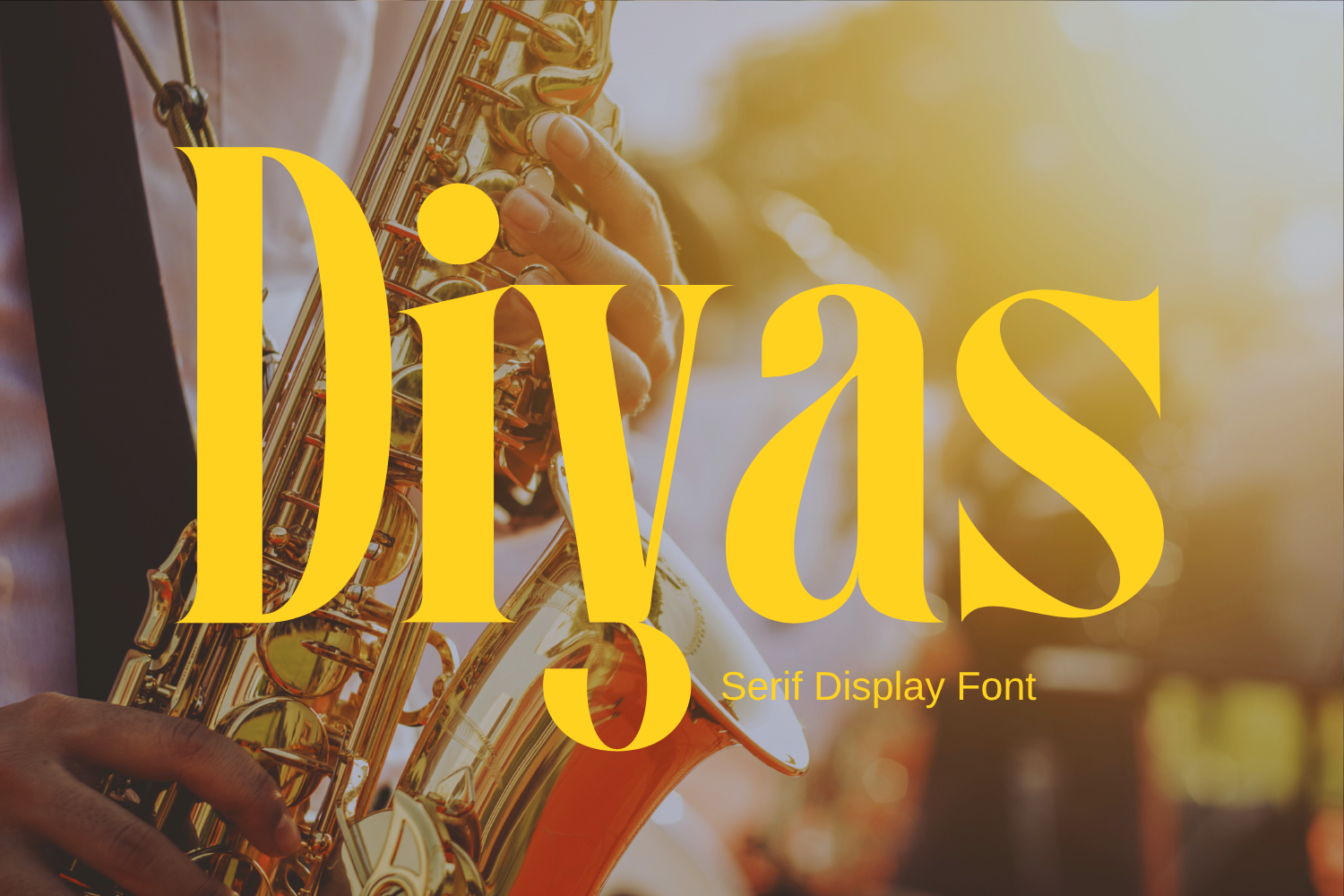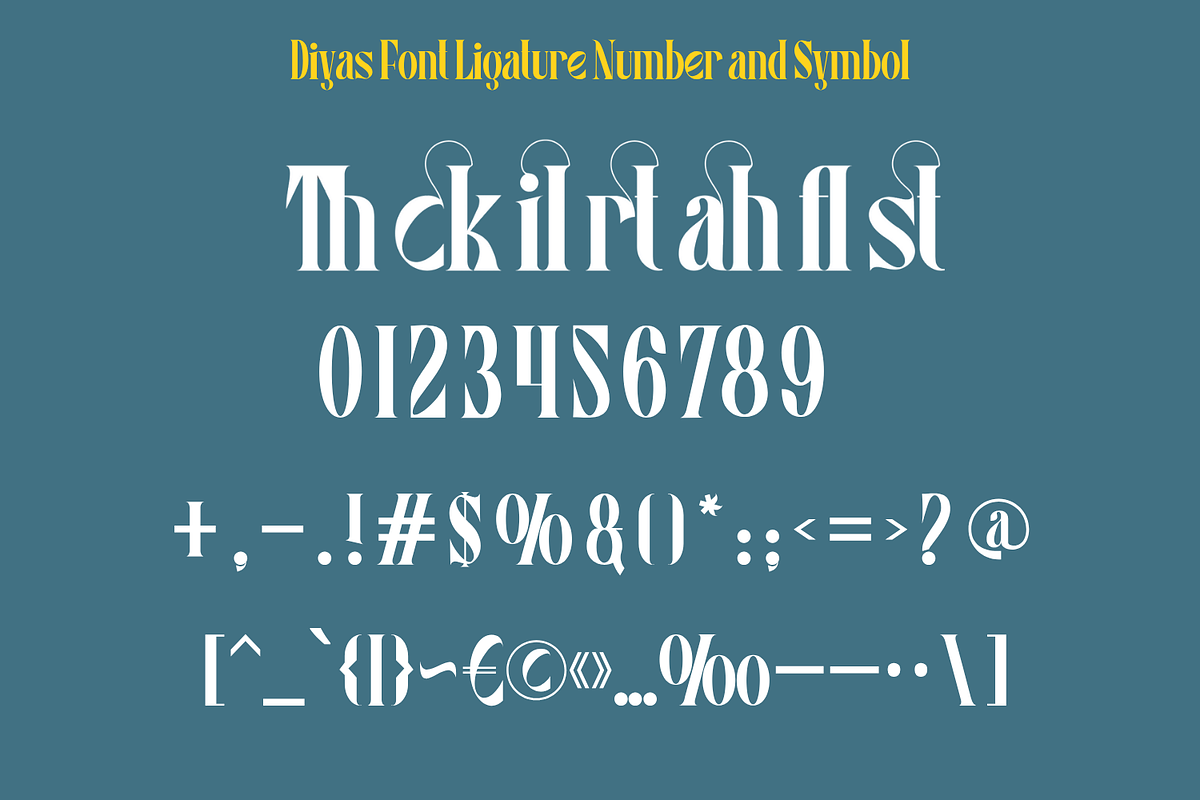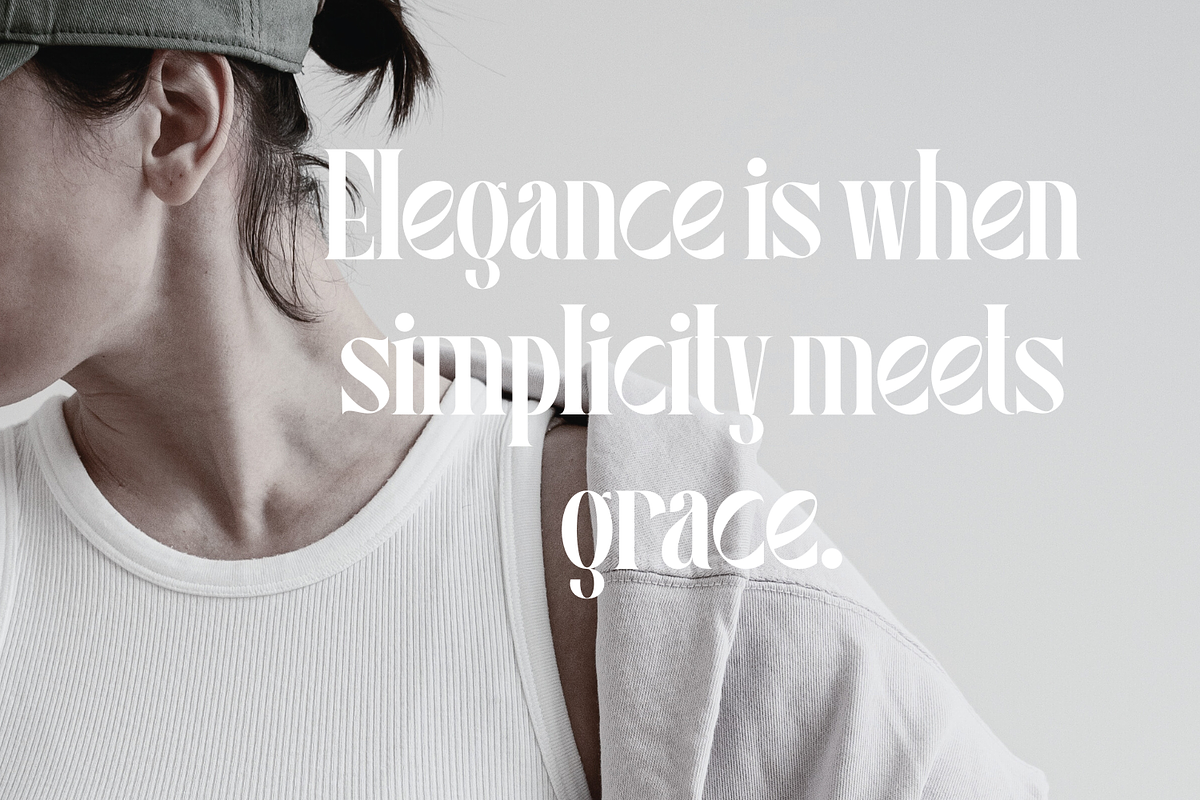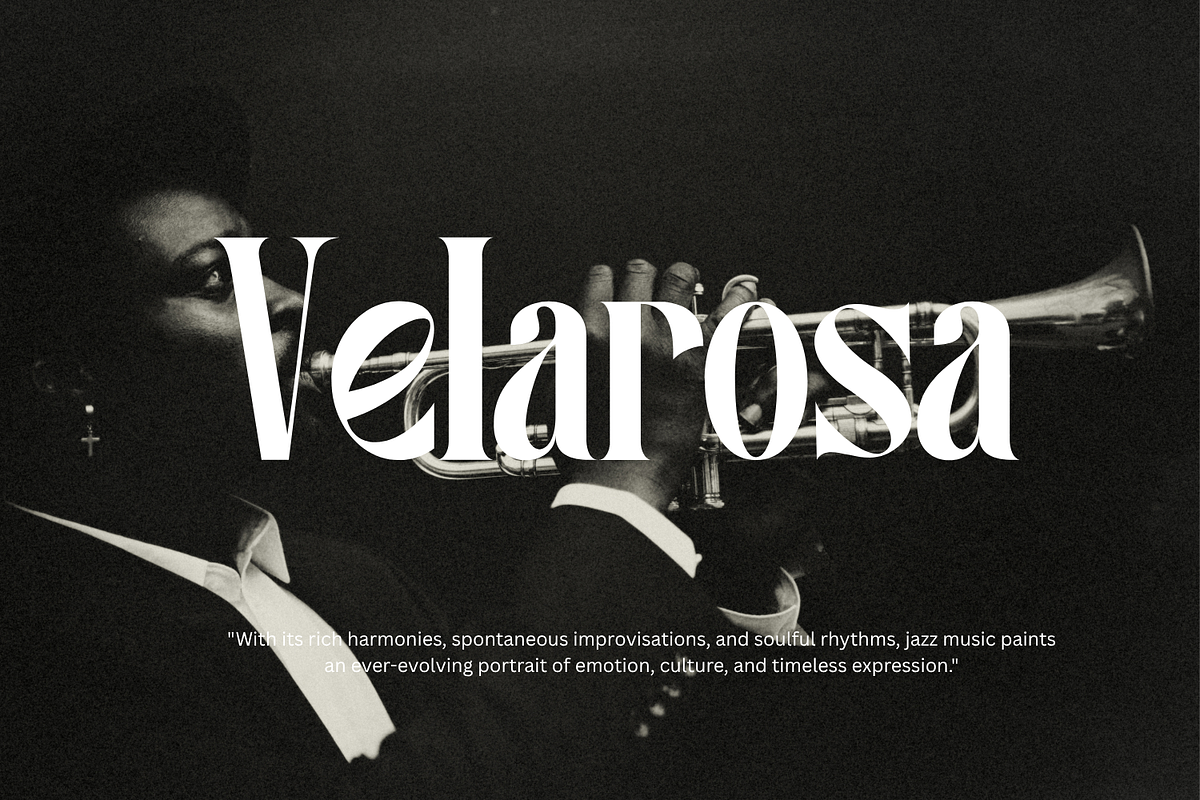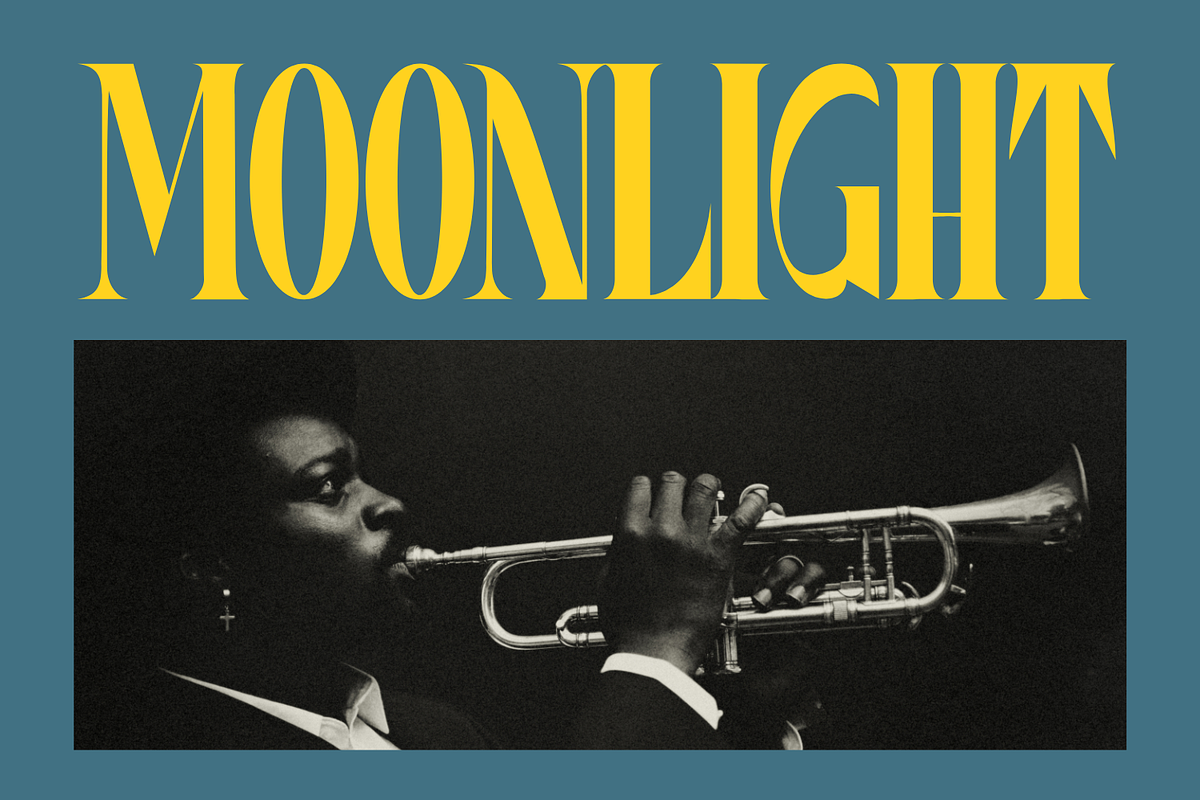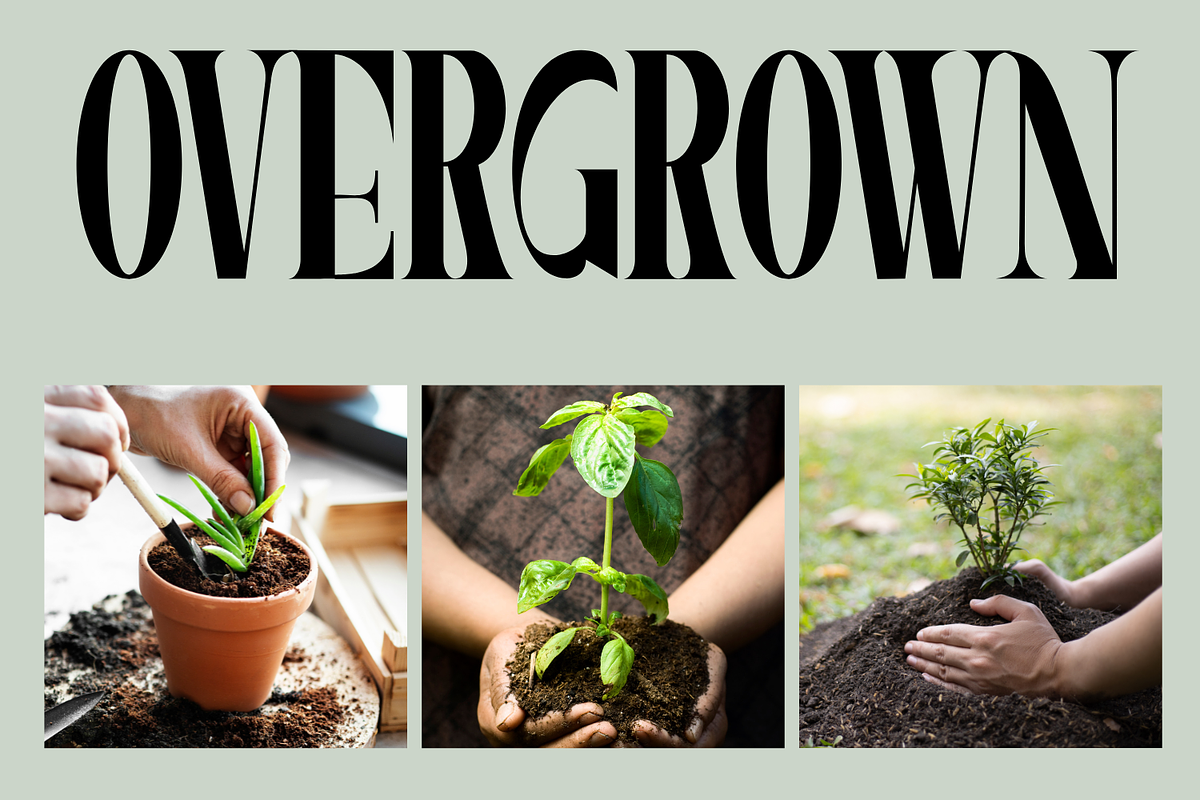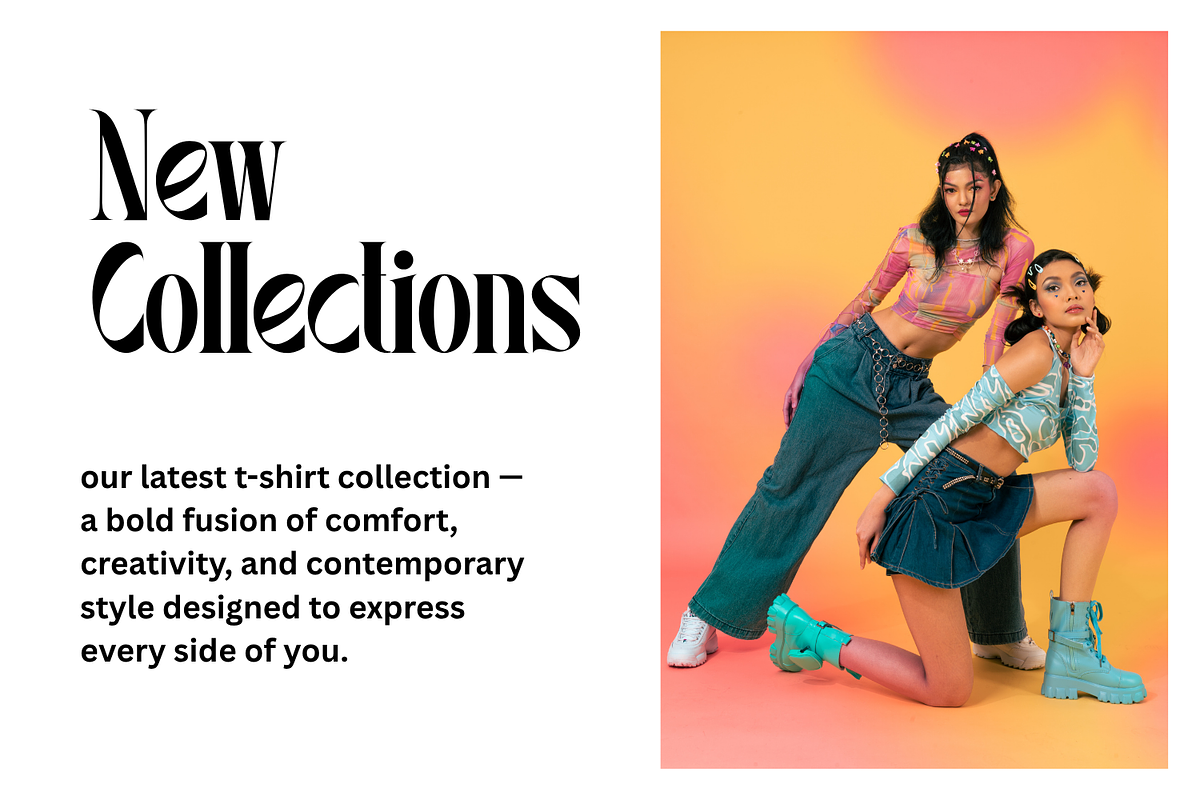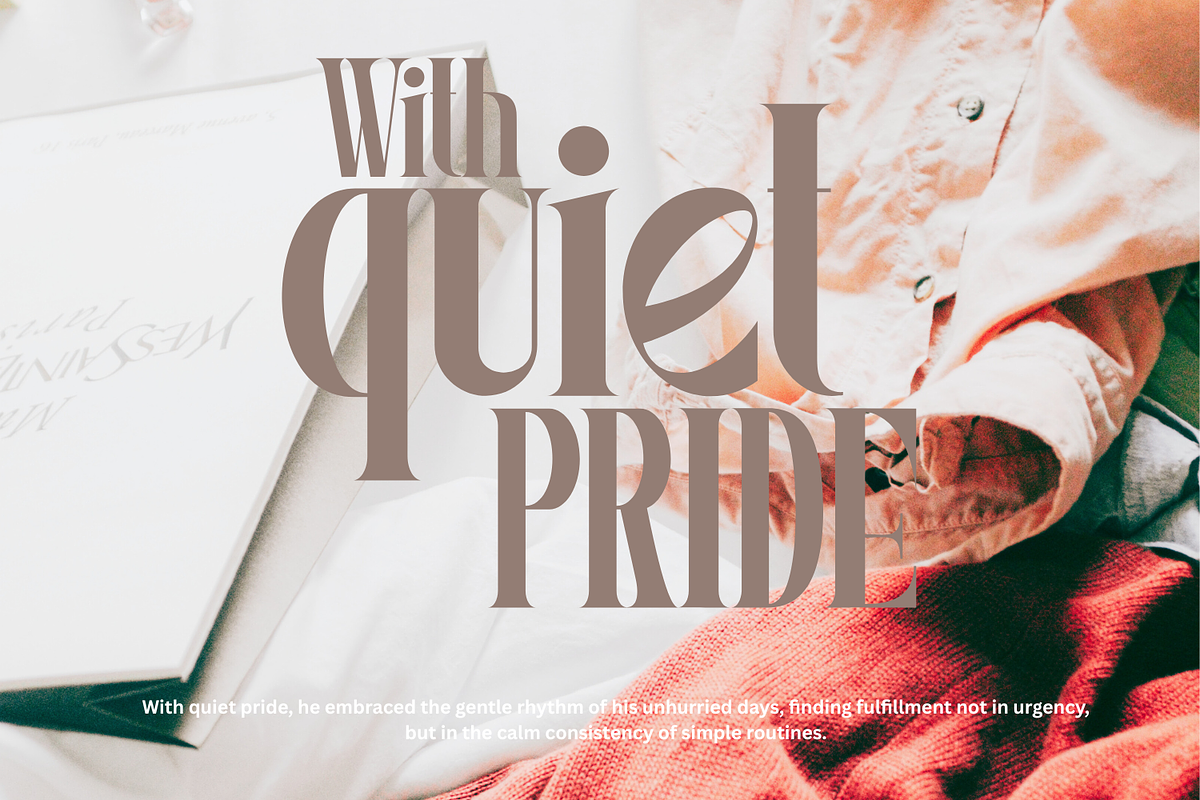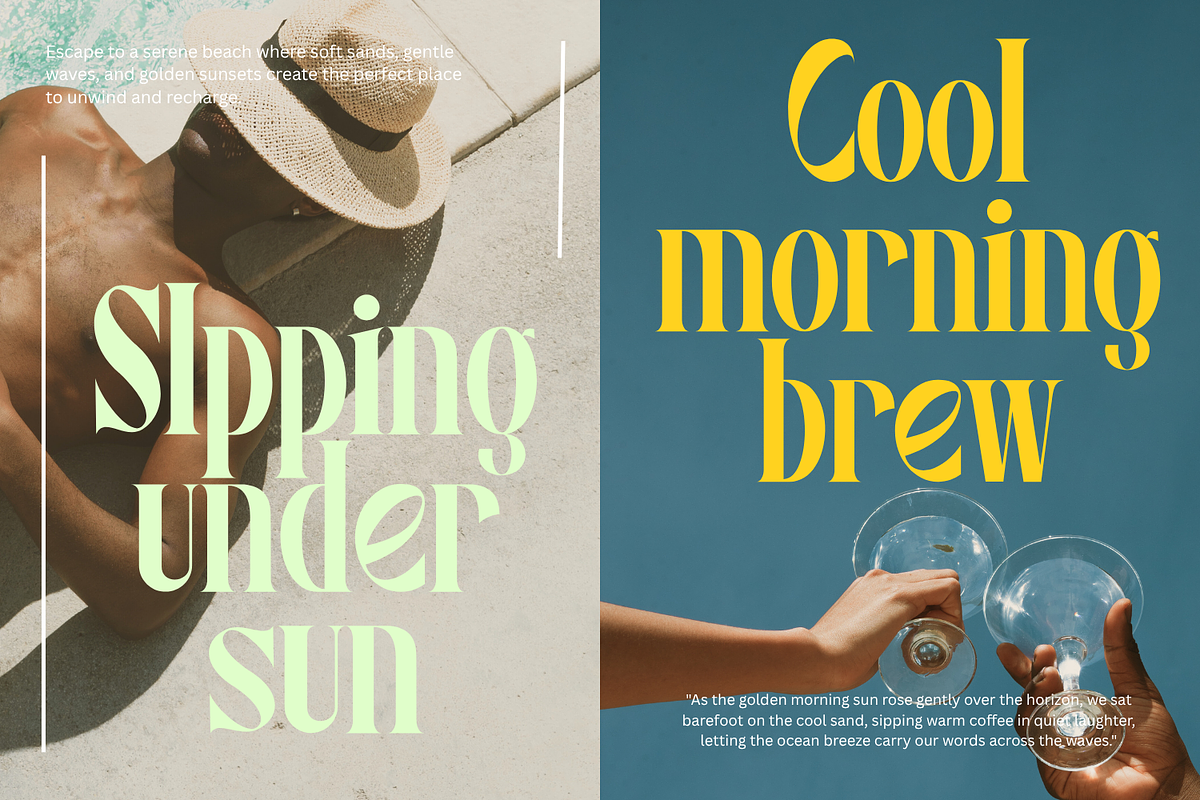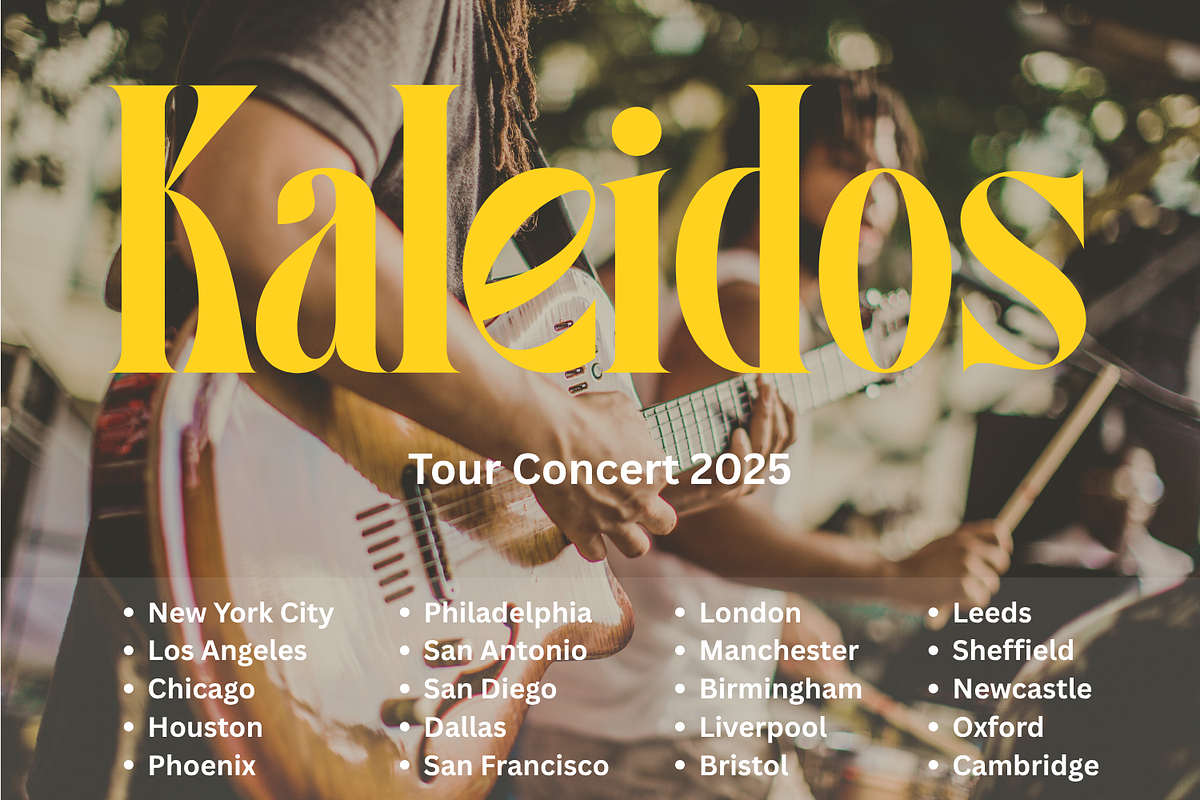
Diyas Font
✨ Diyas Font – Elegant Serif Display Typeface
Diyas Font is a modern serif display font designed to bring sophistication, elegance, and bold character to your design projects. Featuring beautiful ligatures, unique curves, and a high-contrast style, Diyas is perfect for designers looking for a refined yet versatile typeface.
Crafted for both digital and print use, Diyas Font works beautifully for branding, editorial layouts, social media graphics, wedding invitations, fashion lookbooks, and more. Its sleek, luxurious letterforms create a strong visual identity without overpowering your design.
- Uppercase & Lowercase Letters
- Stylish Ligatures (th, ck, fl, st, etc.)
- Branding & Logo Design
- Editorial & Magazine Layouts
- Invitations & Stationery
- Packaging & Labels
- Social Media Graphics
- Fashion, Beauty, and Luxury Projects
- Elegant & High-Contrast Strokes
- Unique Ligature Pairs
- Display Ready for Web or Print
- Easy to Pair with Other Fonts
- Clean, Classy, and Versatile Style
Why You'll Love It: Diyas Font makes your design look professional, modern, and timeless. It's a go-to choice for logos, wedding designs, and high-end branding.